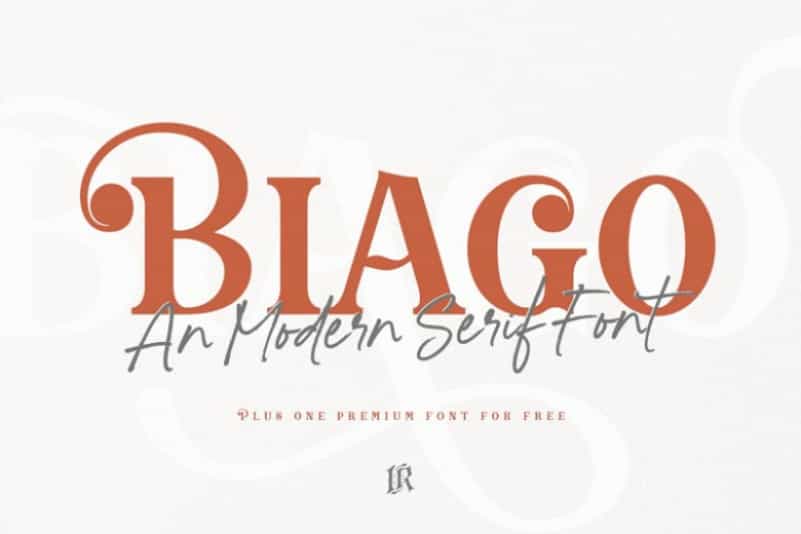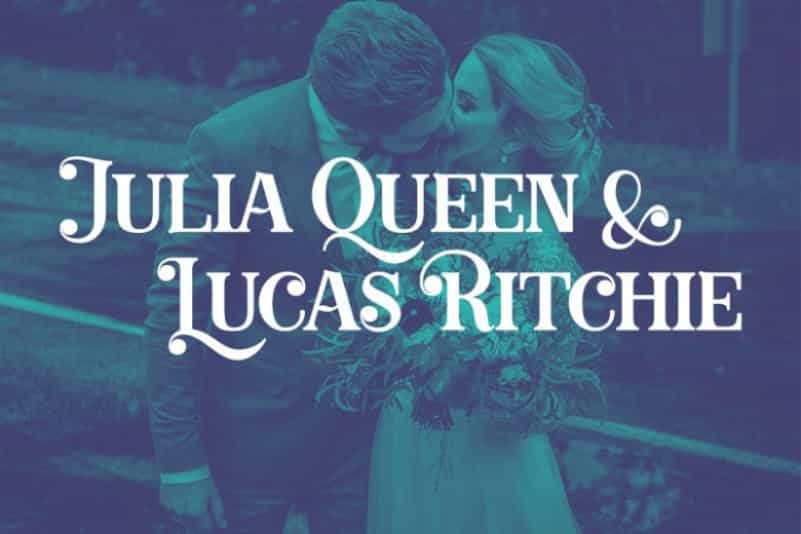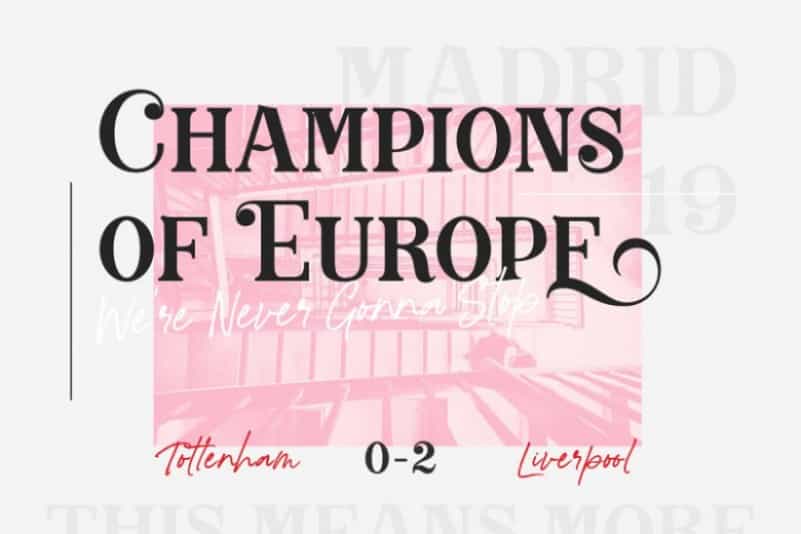
Biago Font Duo – Let your designs be more classy. A perfect blend of serif and handwriting font is the main feature of this font. Biago was developed by Ivan Rosenberg and was made available to the public. A number of fashionable choices will provide you with a lot of options to use. Besides, I am also attached the premium font The Brightside for which they make a great pair – FOR FREE.